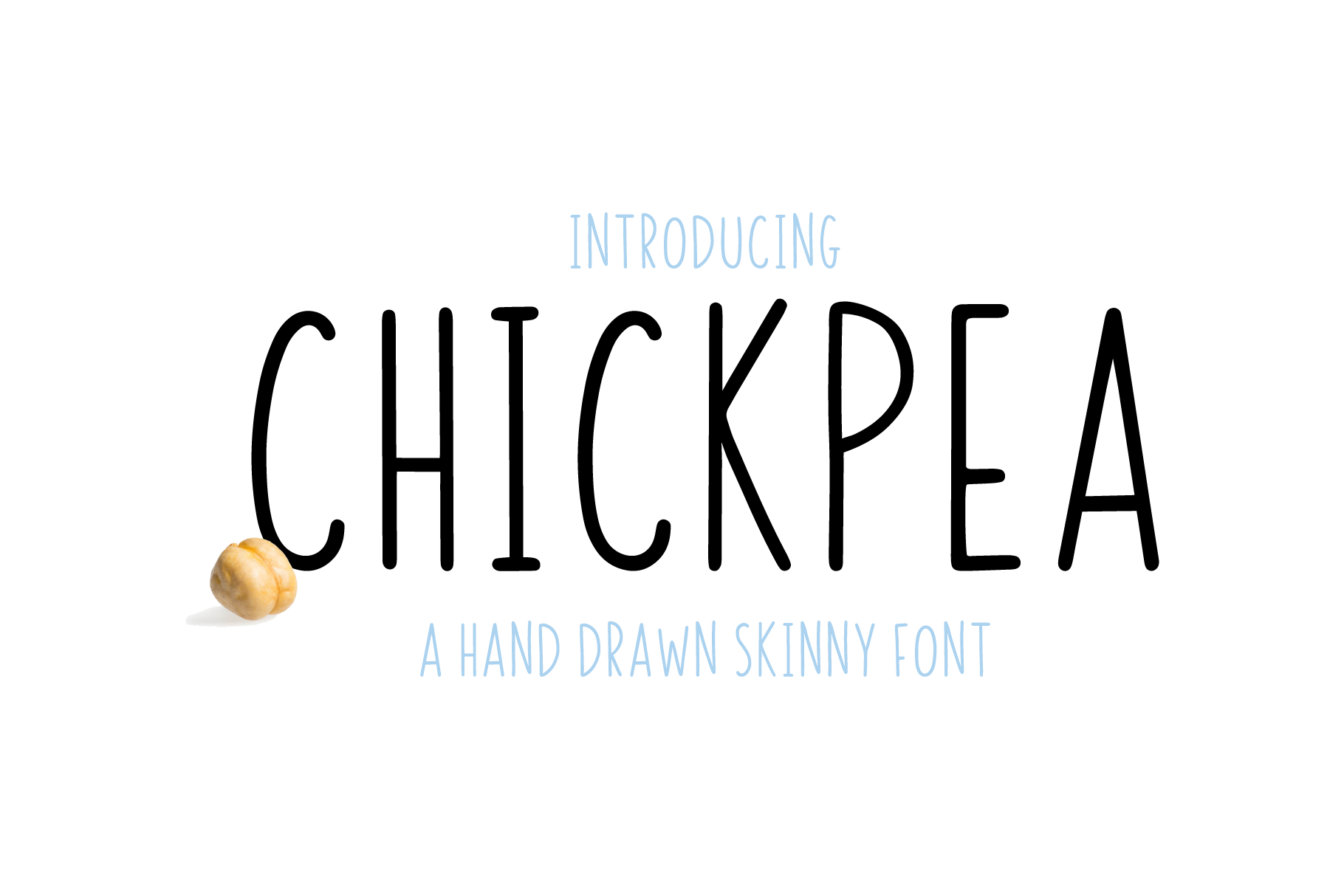
Chickpea | All Caps Skinny Font
Introducing Chickpea, a wholesome hand drawn (by me!) skinny all caps font!
- all caps uppercase characters
- numbers and special characters.